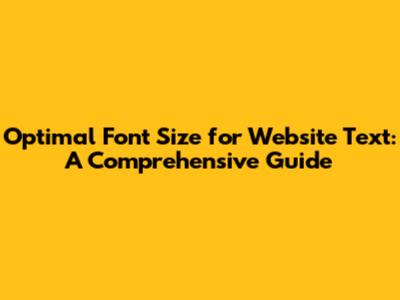
- Target Audience: Think about who's visiting your site. Are they primarily young adults, older folks, or a mix? Older users might benefit from larger font sizes for better readability. Consider the average age and visual acuity of your audience when making your choice. For example, a website targeting senior citizens should prioritize larger fonts to ensure ease of reading. Understanding your audience's needs is the first step in creating a user-friendly experience. Knowing their preferences and limitations will guide you in making informed decisions about typography and overall design.
- Content Type: Is your site packed with long-form articles, or is it more visual with shorter bursts of text? For lengthy articles, a slightly larger font size can prevent eye strain. For websites with lots of images and less text, you might have more flexibility. Different content types require different approaches to typography. A blog with extensive articles needs a font size that's comfortable for extended reading sessions, while a landing page with concise messaging might benefit from a bolder, slightly larger font to grab attention. The key is to adapt your font size to the specific needs of your content.
- Website Design: Your font size should complement your overall website design. A clean, minimalist design might pair well with a slightly smaller font, while a more visually complex site might need larger text to stand out. Ensure your typography harmonizes with your site's aesthetic. The overall visual style of your website should guide your choice of font size. A modern, sleek design might use a different font and size than a more traditional or artistic website. Consider how the font interacts with other design elements, such as images, colors, and spacing, to create a cohesive and visually appealing experience.
- Font Choice: Different fonts have different visual heights even at the same point size. A font with a larger x-height (the height of the lowercase 'x') will appear larger than a font with a smaller x-height. Experiment with different fonts and sizes to see what works best for your content and design.
- Body Text: This is the bread and butter of your website content. A font size between 16px and 18px is generally considered optimal for body text. This range provides a comfortable reading experience for most users on desktop screens. However, don't be afraid to experiment and see what looks best with your chosen font and design. The goal is to create text that's easy to read without being overwhelming. For mobile devices, you might want to slightly increase the font size to ensure readability on smaller screens. Remember, the key is to prioritize the user experience and make your content accessible to everyone.
- Headings: Headings are your website's signposts, guiding users through your content. Use larger font sizes for headings to create a clear visual hierarchy. H1 headings (the main title) should be the largest, followed by H2, H3, and so on. A good starting point is 24px-36px for H1, 20px-24px for H2, and 18px-20px for H3. Adjust these sizes based on your overall design and the prominence you want to give each heading. Using different font sizes for headings helps to structure your content and make it easier for users to scan and understand the main points. It also adds visual interest to your page and helps to break up large blocks of text.
- Subheadings: Subheadings act as mini-headlines, breaking up your body text and improving readability. Use a font size slightly smaller than your main headings but larger than your body text. This creates a clear distinction between sections and helps users navigate your content. Consistent use of subheadings not only improves readability but also enhances the overall organization of your website. They provide a roadmap for your readers, allowing them to quickly grasp the key topics and find the information they need. Aim for a font size that's large enough to stand out but not so large that it overshadows the main headings.
- Navigation Menus: Your navigation menu is crucial for user experience. Ensure the font size is legible and easy to click on both desktop and mobile devices. A font size of 14px-16px is a good starting point, but consider the overall design and the spacing between menu items. Clear and accessible navigation is essential for guiding users through your website. If your menu text is too small or too difficult to read, visitors may struggle to find what they're looking for, leading to frustration and a higher bounce rate. Prioritize readability and make sure your menu is easily navigable on all devices.
- Captions and Small Text: For captions, disclaimers, and other small text elements, a font size of 12px-14px is generally sufficient. However, make sure this text is still legible and doesn't strain the eyes. Use sufficient contrast between the text and the background to ensure readability. Small text elements often provide important contextual information, so it's crucial that they are easily readable, even at a smaller size. Consider using a slightly bolder font weight to improve legibility without increasing the font size. Always test your website on different devices and screen sizes to ensure that even the smallest text is clear and accessible.
- Browser Developer Tools: Most modern browsers have built-in developer tools that allow you to inspect and modify the CSS of a webpage in real-time. This is a fantastic way to experiment with different font sizes and see how they look on your site. Simply right-click on an element, select "Inspect" or "Inspect Element," and you can adjust the font size property in the Styles panel. This allows you to instantly see the effect of different sizes and find the sweet spot for your text. Browser developer tools are an invaluable resource for web developers and designers. They provide a hands-on way to experiment with different styles and layouts without making permanent changes to your website's code. Use them to fine-tune your typography and ensure that your text looks great on all devices.
- A/B Testing: A/B testing involves showing different versions of your website to different users and tracking which version performs better. You can use A/B testing to compare the effectiveness of different font sizes on metrics like time-on-site, bounce rate, and conversion rates. This data-driven approach can help you make informed decisions about your typography. A/B testing is a powerful tool for optimizing your website's user experience. By testing different variations of your design, you can identify what resonates best with your audience and make data-backed improvements. When it comes to font size, A/B testing can reveal whether a slightly larger or smaller size leads to better engagement and readability.